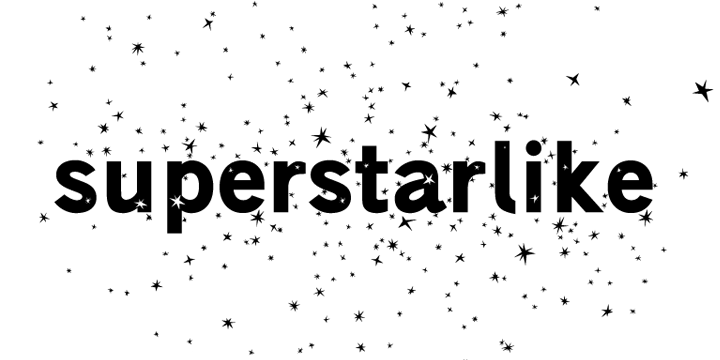
Superstarlike
Designed when: 2007
Contained in Category: Decorative & Display
Superstarlike
Developed from Superbastone and projected to be used with all the weights of Superbastone.
The letters appear under a sky of stars.
It’s ideal for greeting cards, or showbiz applications.